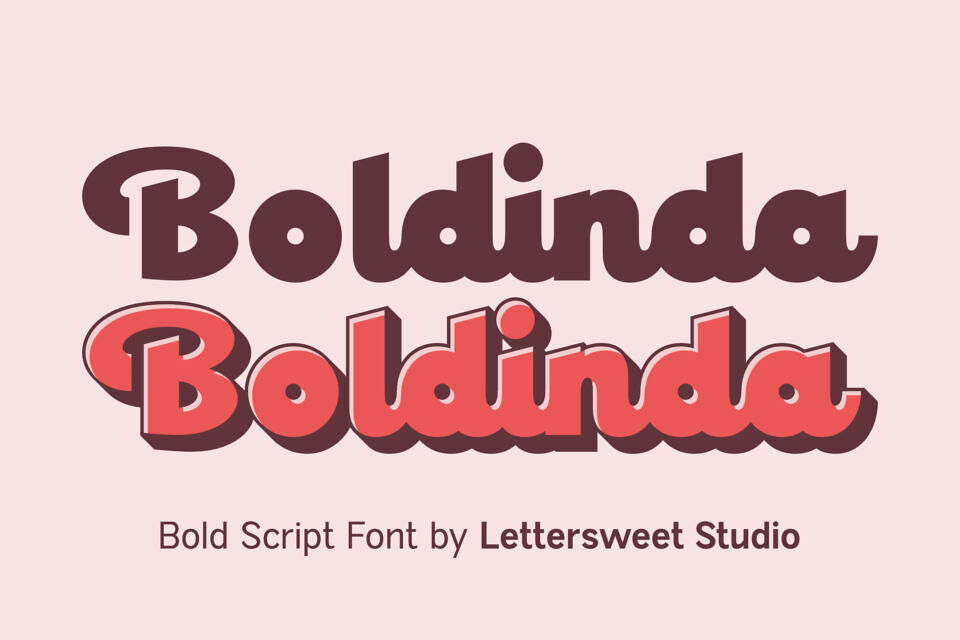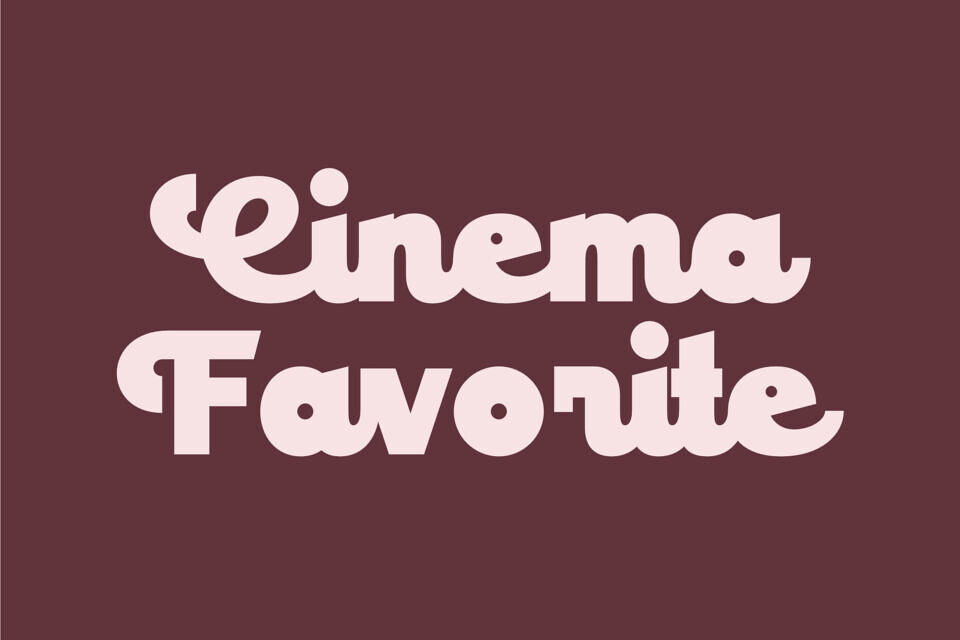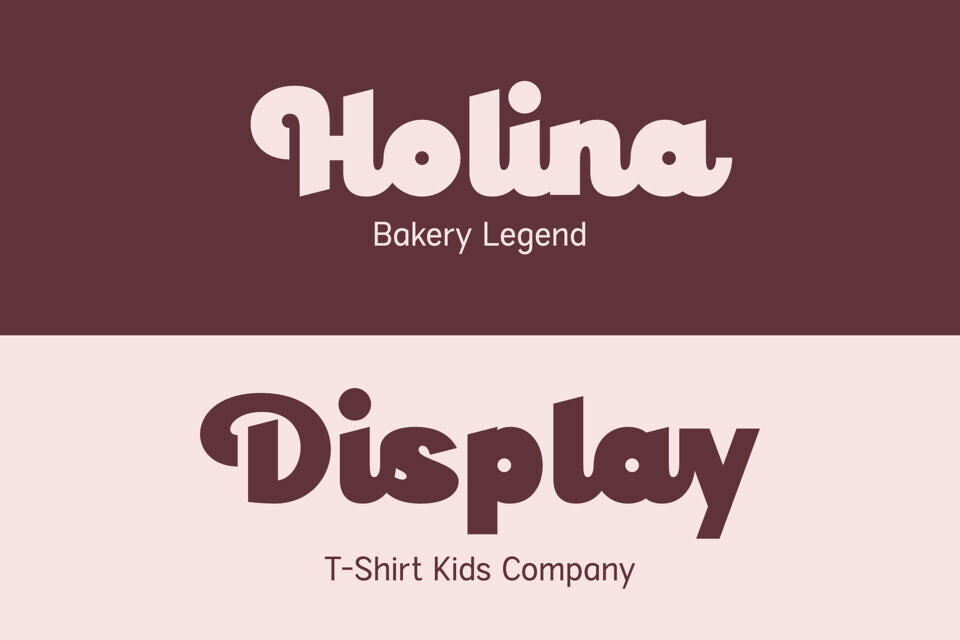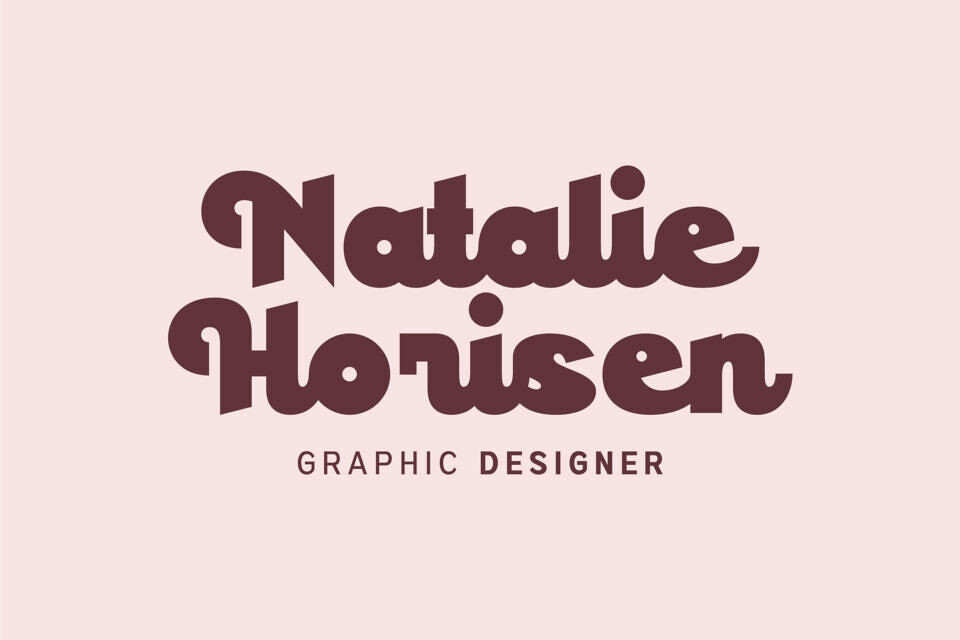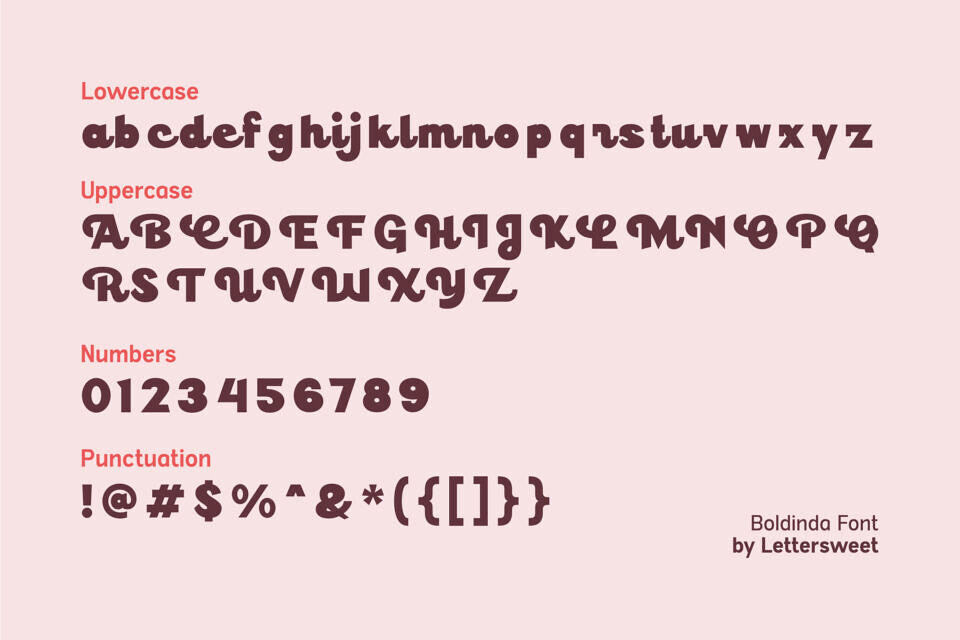
Boldinda is a thick, eye-catching script font designed to bring warmth, confidence, and personality into your designs. With its smooth curves, bold strokes, and friendly flow, Boldinda blends retro charm with a modern playful twist—making it perfect for designs that need to stand out instantly.
This bold script typeface features strong letterforms, soft rounded edges, and a natural handwritten rhythm that feels both powerful and approachable. Whether you’re creating branding, packaging, social media graphics, or merchandise, Boldinda delivers high visual impact without sacrificing readability. Its chunky structure and stylish curves make it ideal for headlines, logos, posters, and product packaging that demand attention.